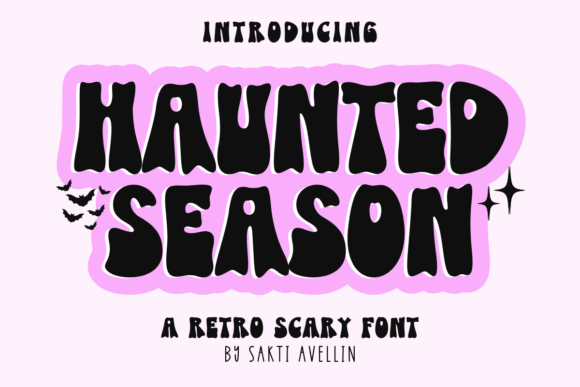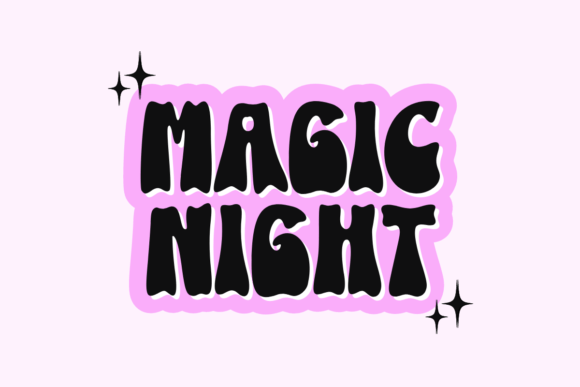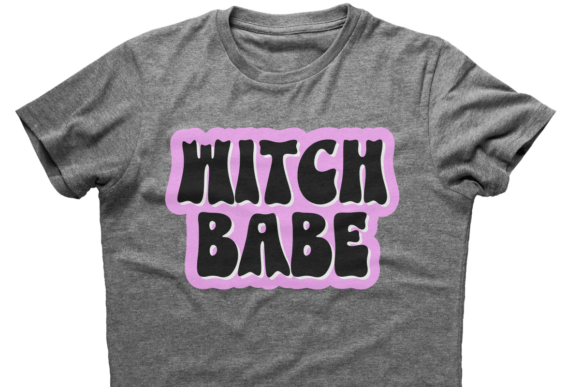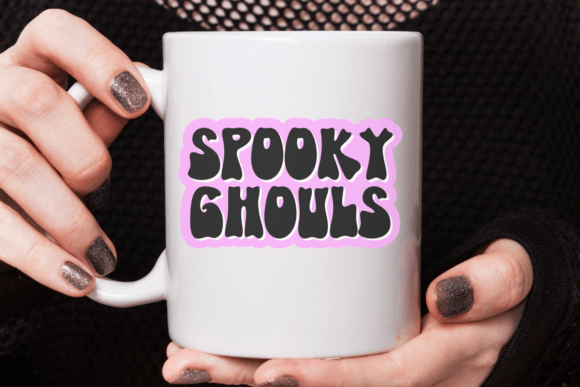
Haunted Season Font: Retro Halloween Font for Spooky Designs
About the Haunted Season Font
Add a touch of class to your work with the Haunted Season Font, a truly exceptional typeface. Haunted Season, a delightfully eerie retro font brimming with both fun and fright. It brings a unique charm to handicrafts, injects personality into T-shirts and mugs, and lends a vintage flair to tote bags and doormats. No Halloween party would be complete without it, and it breathes new life into quotes. When it comes to greeting cards, Haunted Season is the inspiring spirit that makes messages truly memorable. Prepare to be bewitched by its captivating character.
Haunted Season’s playful yet spooky aesthetic makes it ideal for Halloween-themed projects, vintage-inspired branding, and eye-catching headlines. It excels in short bursts of text on packaging, posters, and social media graphics. However, its decorative nature makes it less suitable for body text or UI elements requiring high readability.
For optimal pairings, consider pairing it with a clean sans-serif like Open Sans for a balanced contrast, or a classic serif like Garamond for a more refined, vintage feel. A simple geometric sans-serif would also create a modern yet spooky juxtaposition.
The font’s core personality is whimsical and slightly mischievous; bold enough to make a statement but friendly enough to avoid being overly menacing. This makes it perfect for brands aiming for a fun, slightly spooky, and nostalgic image.
Haunted Season Font Usage Examples
Haunted Season Font Example